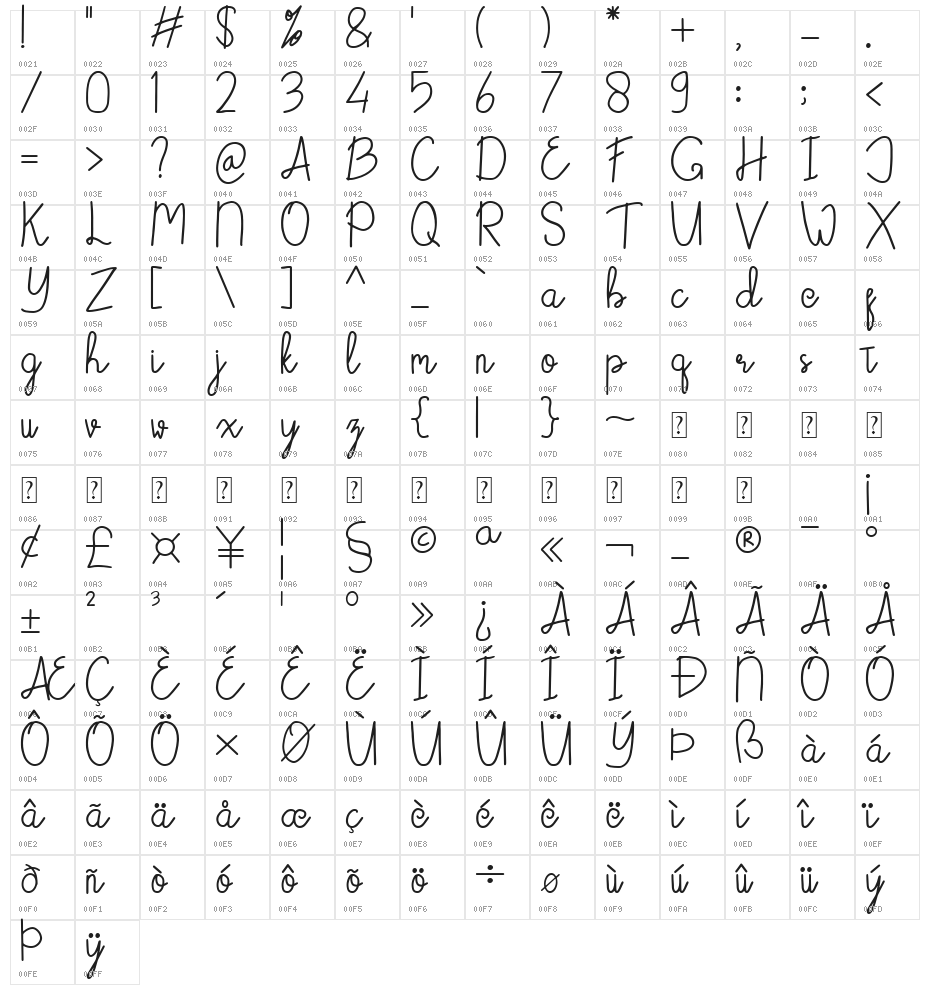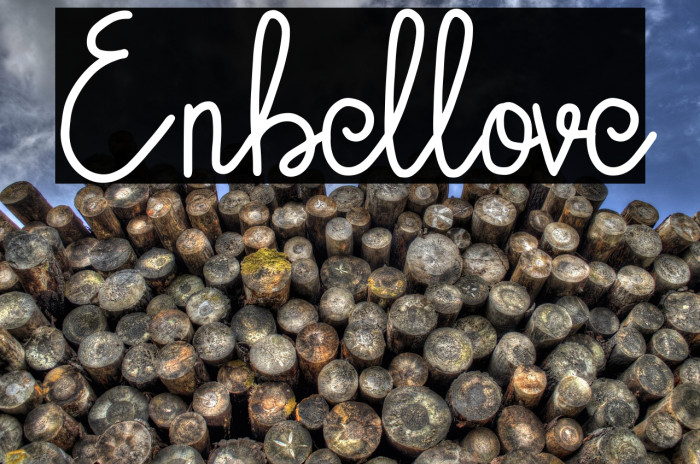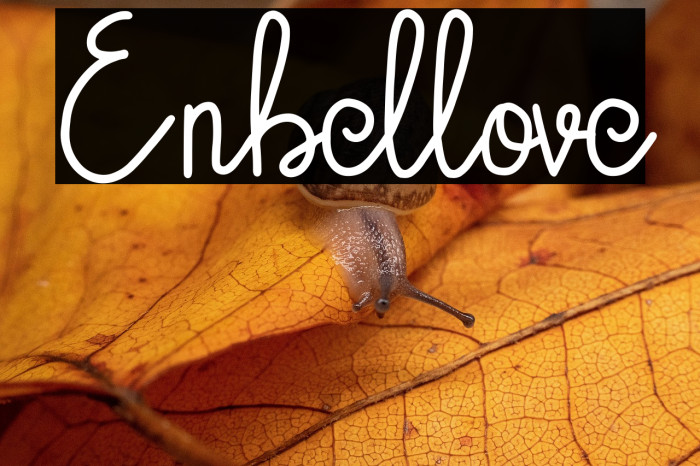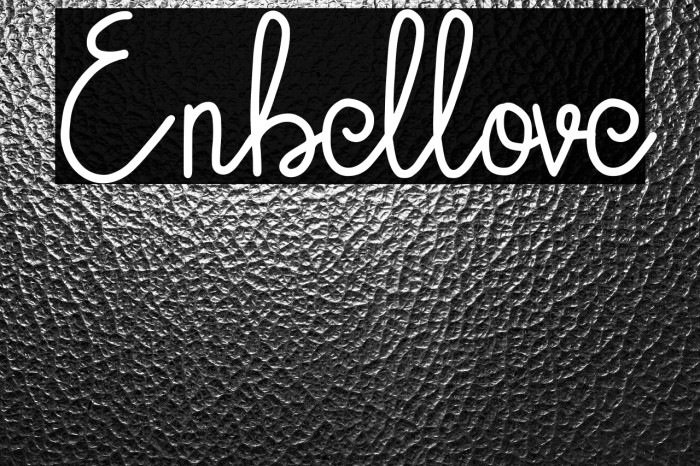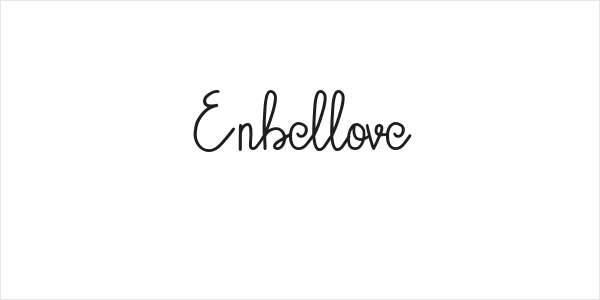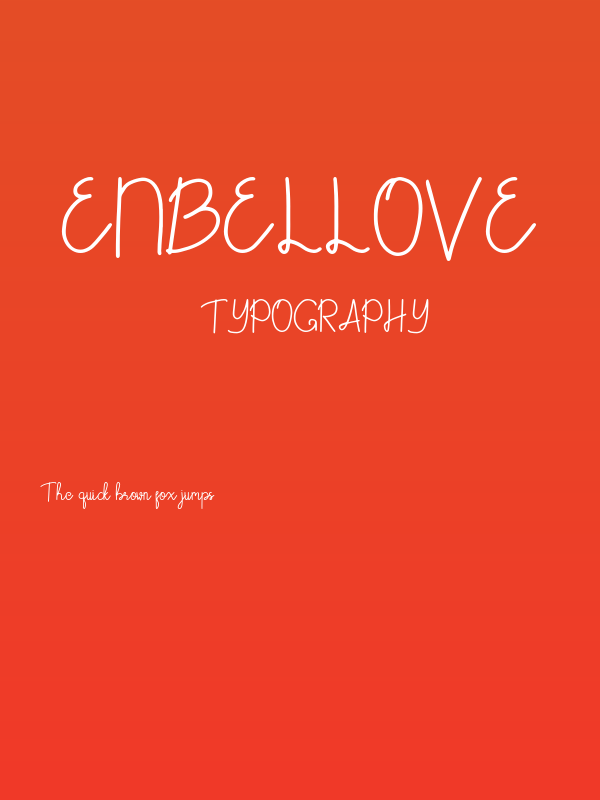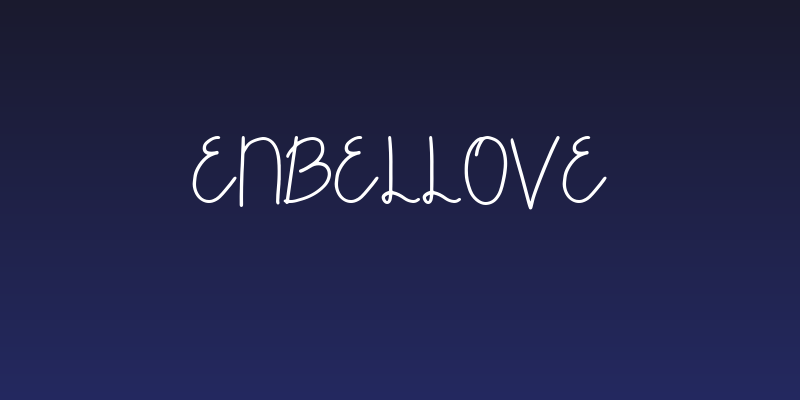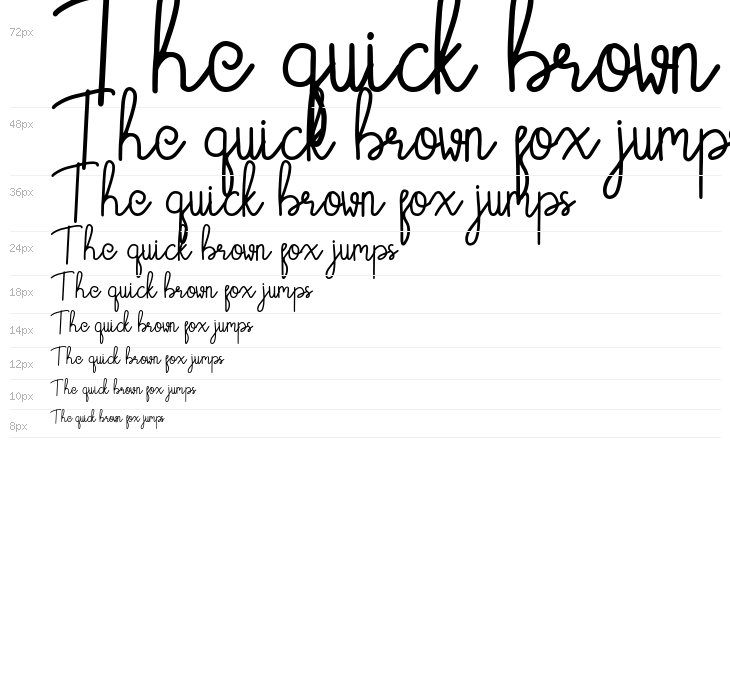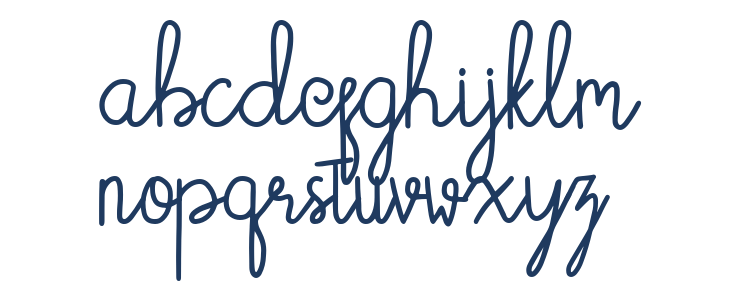
Enbellove Font
Enbellove Description
This font features a playful and casual handwritten style, characterized by its fluid and continuous strokes. The uppercase letters are slightly slanted, adding a dynamic feel, while the lowercase letters maintain a consistent flow, enhancing readability. The numerals are distinct and easy to distinguish, with a slight tilt that complements the overall style. Special characters are creatively integrated, maintaining the font's whimsical nature. The strokes are uniform in thickness, providing a balanced appearance without high contrast. This font is perfect for projects that require a personal touch, such as invitations, greeting cards, or creative branding.
| Use Case | Headlines, Creative projects, Personal branding |
| Proposed Projects | Ideal for invitations, greeting cards, personal branding, and creative projects. |